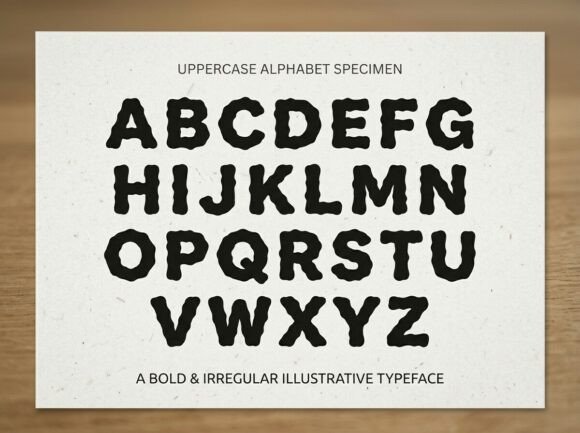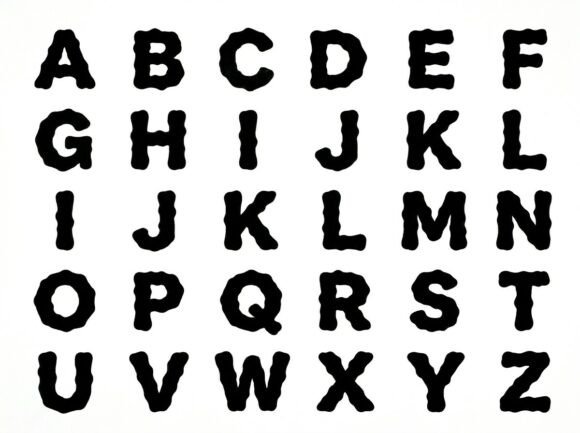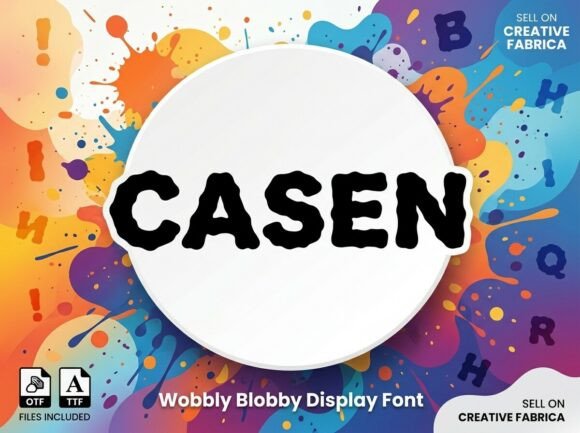
Introducing Casen Font: The Avant-Garde Decorative Display Font
In the world of typography, a new font has emerged that is sure to make a statement. Meet Casen Font, an avant-garde decorative display font designed to be the focal point of any composition. With its commanding visual personality and unique artistic flourishes, this typeface is perfect for creators who refuse to blend in.
Characterized by Strong Artistic Soul and Polished Finish
Casen Font boasts a strong, artistic soul, making it ideal for designers and crafters who want to add a touch of elegance and sophistication to their work. Despite its bold and artistic nature, this font maintains a high-end, polished finish, making it suitable for luxury packaging, experimental editorial layouts, and high-impact headlines.
Ideal for Various Design Applications
Casen Font is a versatile typeface that can be used in a variety of design applications, including:
- High-impact headlines: Make a statement with Casen Font’s bold and eye-catching lettering.
- Signature logos & branding: Create a unique and memorable brand identity with this distinctive font.
- Conceptual packaging: Add a touch of luxury and sophistication to your packaging designs.
- Poster & social media design: Stand out from the crowd with Casen Font’s avant-garde style.
Important Note: All-Caps Display Typeface
Please note that Casen Font is an all-caps (uppercase only) display typeface. By omitting lowercase characters, the designer has focused entirely on the intricate craftsmanship of every individual letter, ensuring each one acts as a standalone work of art. This unique approach allows for a level of detail and precision that is unmatched in traditional typefaces.
Why Choose Casen Font?
So why choose Casen Font over other typefaces? Here are just a few reasons:
- Unique and eye-catching: Casen Font’s avant-garde style is sure to turn heads and make a lasting impression.
- High-end polish: Despite its bold nature, this font maintains a sophisticated and refined finish.
- Versatile: Use Casen Font in a variety of design applications, from luxury packaging to social media graphics.
In conclusion, Casen Font is a game-changing decorative display font that is sure to elevate your designs to the next level. With its unique artistic flourishes, commanding visual personality, and high-end polish, this typeface is perfect for designers and crafters who want to make a statement. Whether you’re working on a luxury packaging project or a social media graphic, Casen Font is the perfect choice.